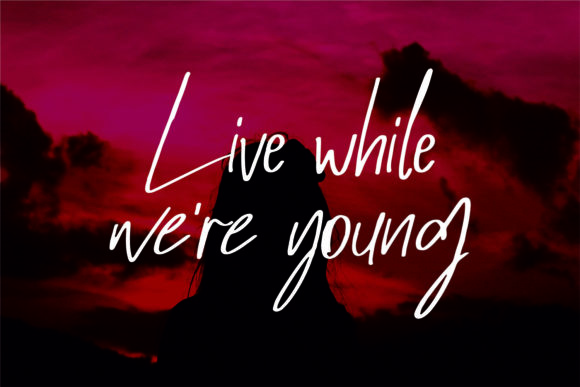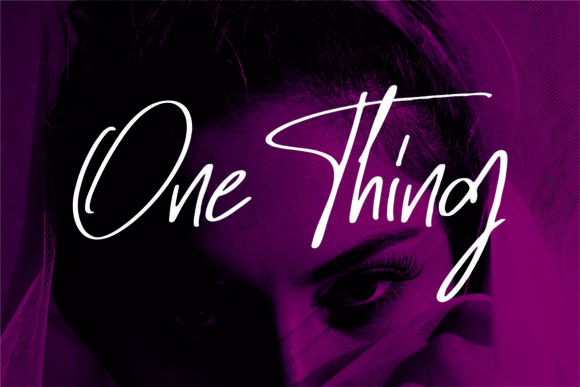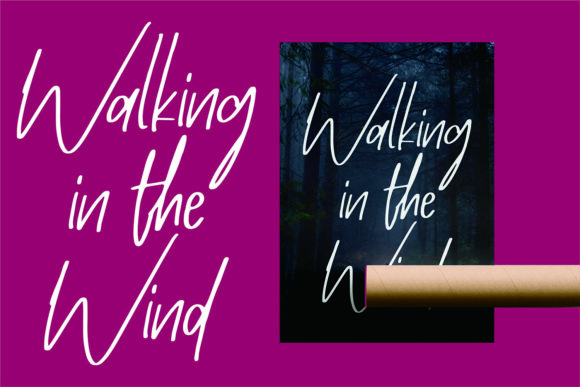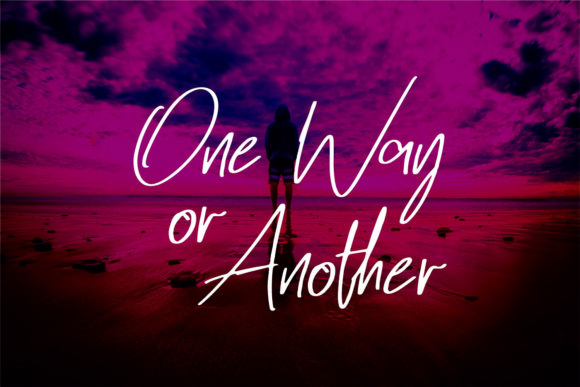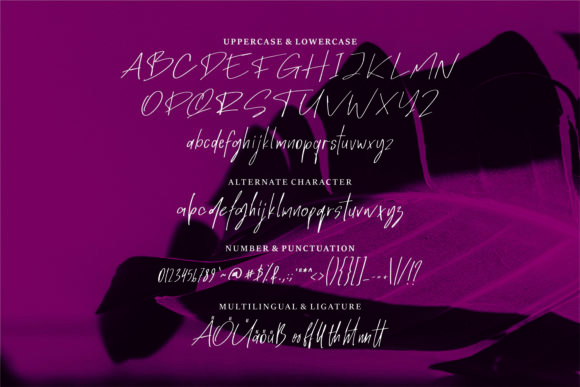
Introduction to Madrigal Font
Have you ever found yourself in the midst of a creative project, struggling to find the perfect font to match your vision? The blank page stares back, taunting you with its emptiness, until suddenly, you stumble upon the perfect match – a font that speaks to your design soul. This is where the Madrigal Font comes in, a stylish script font that exudes sophistication and versatility, making it the ultimate design resource for any creative project.
Whether you’re a seasoned designer or a newcomer to the world of typography, the Madrigal Font is a valuable asset in your design arsenal. Its luxurious alternates and ligatures make it a high-quality addition to any project, from elegant invitations to modern websites. With its transparent background, you can seamlessly integrate it into your design, adding a touch of class and sophistication that’s hard to resist.
What sets the Madrigal Font apart is its ease of use. With PUA encoding, you can access all of the glyphs and swashes with ease, making it a free download that’s worth every penny. This is why designers of all levels swear by the Madrigal Font, and why it’s become a go-to design resource for anyone looking to elevate their creative project to the next level.
Key Features of Madrigal Font
- High-quality, elegant design suitable for various creative projects, including wedding invitations, book covers, and more.
- Features a clean, cursive script with a romantic and whimsical feel, perfect for adding a touch of elegance to any design project.
- Includes a wide range of glyphs, making it suitable for both English and foreign language designs.
Honest Review: Madrigal Font
As a designer, I’m always on the lookout for high-quality design resources to elevate my creative projects. Recently, I stumbled upon the Madrigal Font, and I’m excited to share my honest review with you.
What works well: ✨ The Madrigal Font is a beautifully crafted script font with a elegant, vintage feel. It’s perfect for projects that require a touch of sophistication and whimsy. I love that it comes with a transparent background, making it easy to use in various design applications.
Here are some of the key features of the Madrigal Font:
- Beautifully crafted script font with a vintage feel
Overall, I’m impressed with the Madrigal Font. It’s a valuable design resource that can add a touch of elegance to any creative project. If you’re looking for a high-quality script font, I’d definitely recommend checking it out.
The Madrigal Font is ideal for wedding invitations, business cards, and other creative projects that require a touch of elegance and sophistication.